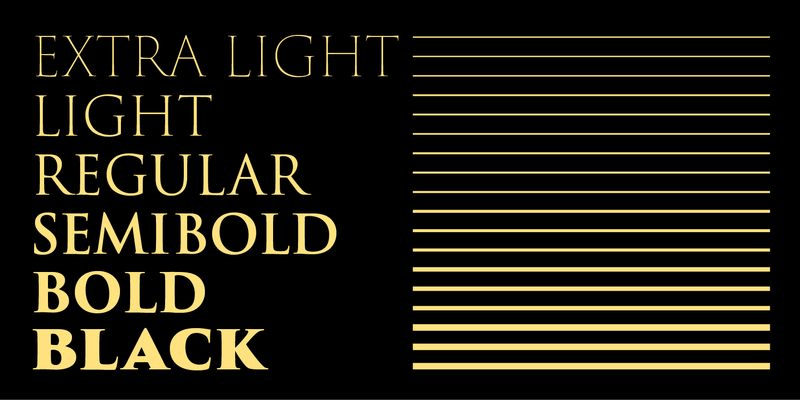
The Trajan Font Family, designed by Carol Twombly and Robert Slimbach from Adobe Originals, is a timeless serif typeface inspired by the classic Roman inscriptions found on Trajan’s Column in Rome. Trajan is widely recognized for its strong, majestic appearance and refined letterforms that evoke a sense of history, tradition, and grandeur. As a font that has been frequently used in movie posters, book covers, and formal documents, Trajan remains a popular choice for projects that require a classical and elegant look. In this article, we will explore some of the best font pairings and alternatives for Trajan to help you make the most of its classic style in your design work.
Why Choose Trajan?
Trajan is a highly versatile display font that is known for its distinct, sophisticated character. With its all-caps design, Trajan is particularly suited for headlines, logos, formal branding, and anything that requires a strong, authoritative presence. Its roots in classical Roman inscriptions give Trajan an element of grandeur that sets it apart from many other serif fonts, making it a great choice for projects that require a feeling of heritage, tradition, or seriousness.
Best Pairings for Trajan
Pairing Trajan with other fonts can be a challenging but rewarding task. Since Trajan itself is quite distinct and authoritative, it’s important to pair it with fonts that either offer a neutral backdrop to complement its strength or bring a harmonious contrast. Here are some of the best font pairings for Trajan:
1. Minion Pro
Minion Pro, also designed by Robert Slimbach, is a classic serif typeface that works wonderfully with Trajan. The two fonts share a similar sensibility and design lineage, making them highly complementary. Minion Pro’s readability and elegance make it an ideal choice for body text, while Trajan can shine in headlines, logos, or callouts. This pairing is ideal for formal projects, such as book covers, editorial layouts, or invitations.
2. Myriad Pro
Myriad Pro is a humanist sans-serif typeface that provides an excellent contrast to the classical serif style of Trajan. Myriad Pro’s modern and clean design can help tone down Trajan’s formal and historical feel, making the overall design more approachable and balanced. This combination is ideal for branding and advertising where you want to convey both authority and contemporary appeal.
3. Garamond
Garamond is a classic old-style serif font that pairs beautifully with Trajan. Garamond’s elegant and flowing letterforms provide a softer and more traditional touch that complements Trajan’s bold, stately appearance. This pairing works well in projects that require a sense of history and sophistication, such as wedding invitations, editorial layouts, or certificates.
4. Avenir
Avenir is a geometric sans-serif that creates a striking contrast with Trajan. Its clean and modern design serves as an effective counterbalance to the classical elegance of Trajan, providing a visually appealing blend of old and new. This pairing can be particularly useful in branding and marketing materials that aim to convey both tradition and modernity, such as luxury brands or institutions.
5. Baskerville
Baskerville is another classic serif typeface that pairs well with Trajan. Baskerville’s refined and highly readable letterforms provide an excellent complement to the grand, capitalized style of Trajan. This pairing can create a luxurious and sophisticated aesthetic, making it ideal for use in editorial projects, high-end branding, and print materials.
6. Futura
Futura, a geometric sans-serif, offers a clean and modern contrast to Trajan’s classic, Roman-inspired design. The minimalist and bold look of Futura helps balance Trajan’s intricate letterforms, making the overall design feel fresh and contemporary. This pairing is particularly well-suited for use in posters, headlines, and modern branding.
Best Alternatives to Trajan
While Trajan is unique in its historical and classical style, there are other typefaces that offer a similar aesthetic and can be used as alternatives when Trajan may not be the perfect fit. Here are some excellent alternatives to Trajan:
1. Cinzel
Cinzel is a great alternative to Trajan, as it draws inspiration from classical Roman inscriptions. It features sharp serifs and elegant letterforms that are reminiscent of Trajan, making it an ideal substitute for projects that need a similar look and feel. Cinzel is also available as a Google Font, making it more accessible for web use.
2. Trajana
Trajana is a serif font inspired by Trajan, but with additional styles and some more contemporary touches. Trajana retains the classic, elegant character of Trajan while adding a bit of modern flair, making it a great choice for projects that need a subtle update to the traditional Trajan aesthetic.
3. Goudy Trajan
Goudy Trajan is another alternative inspired by the classical Roman capital letterforms. It features a softer, more delicate look than Trajan, which makes it suitable for projects that require a more refined, elegant touch. Goudy Trajan works well for book covers, certificates, and any design that needs a formal yet gentle aesthetic.
4. Romanus
Romanus is a serif typeface that draws inspiration from the same historical roots as Trajan. It has a classic and traditional feel, similar to Trajan, but with slightly more ornamental details. Romanus is an excellent choice for projects that need a decorative, historical flair while maintaining readability and authority.
5. Palatino
Palatino, designed by Hermann Zapf, is another great alternative to Trajan. It offers a classic yet more versatile aesthetic that can work well in both headings and body text. Palatino has a warm and approachable feel compared to Trajan, making it a great substitute when you need a traditional serif font with a less formal tone.
6. Optima
Optima, designed by Hermann Zapf, is a humanist sans-serif that has a unique blend of classical and modern influences. Optima can be a fitting alternative for Trajan in projects that require a less formal yet still elegant and sophisticated typeface. Its clean lines and Roman-inspired proportions make it a versatile choice for a range of design applications.
Final Thoughts
Trajan is a powerful and timeless typeface that evokes a sense of history, tradition, and authority. When pairing Trajan with other fonts, it’s essential to choose typefaces that either complement its bold, classical look or provide a clean and modern contrast. Fonts like Minion Pro, Myriad Pro, and Garamond are excellent choices for pairing, each offering a unique balance to Trajan’s grandeur.
Similarly, there are several alternatives to Trajan that provide a similar aesthetic while offering distinct characteristics that might better suit specific projects. Fonts like Cinzel, Trajana, and Romanus are excellent substitutes that capture the essence of classical Roman inscriptions, while others like Palatino and Optima provide more versatility for broader use.
The key to working with Trajan is to use it thoughtfully and in the right context—whether it’s a movie poster, a logo, or an elegant invitation. Experimenting with pairings and alternatives can help you create a balanced, sophisticated design that captures the timeless elegance that Trajan represents.